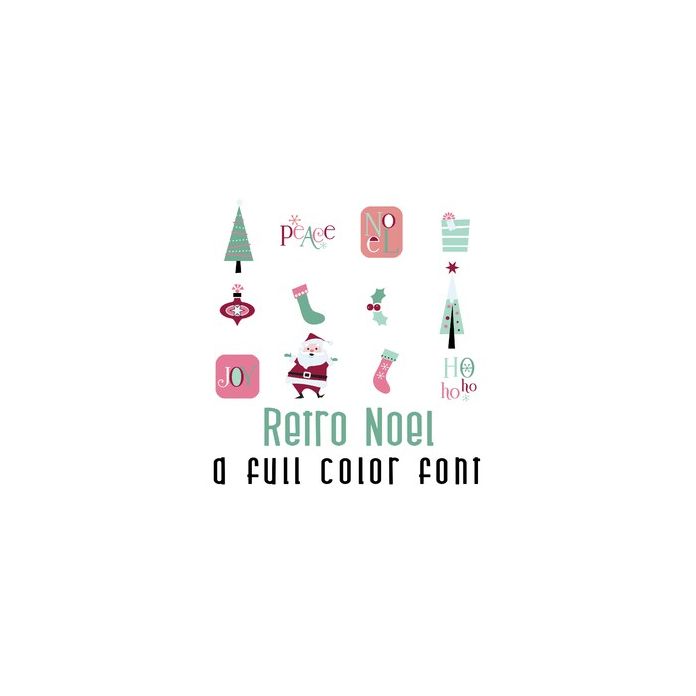
This adorable full-color doodlebat font features 26 retro-style Christmas images. Perfect for cards, crafts, gifts, decor, scrapbook pages, planner stickers, and more!